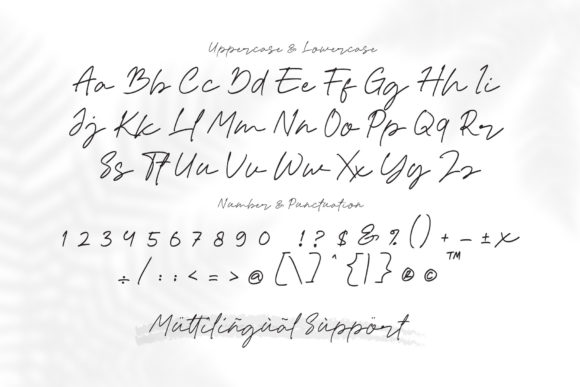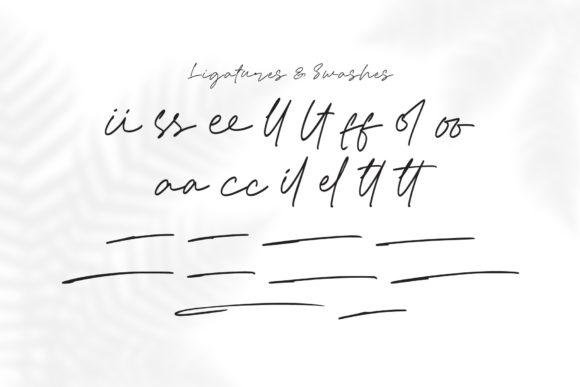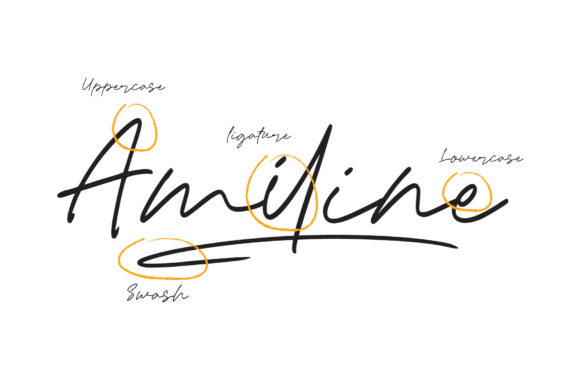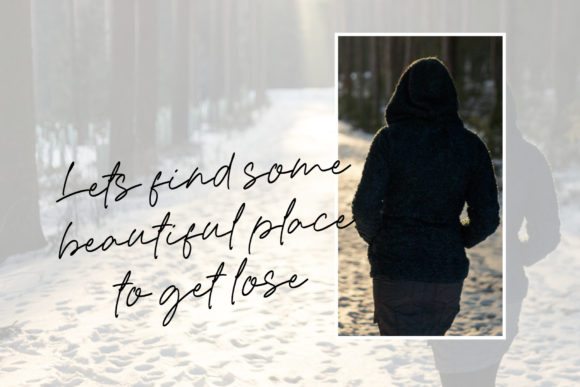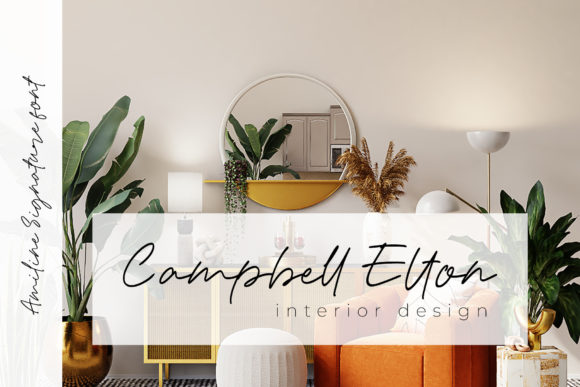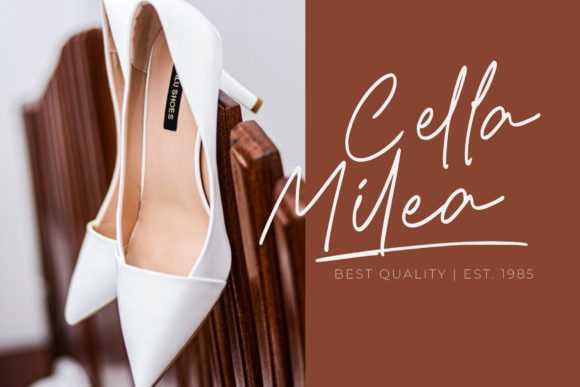
Discover the Elegance of Amiline Font: A Relaxed and Beautiful Script Font
Are you a designer or crafter looking for a font that exudes elegance and sophistication? Look no further than Amiline Font, a stunning script font that is sure to capture your heart. With its relaxed and beautiful style, Amiline Font is the perfect choice for creating lovely designs that stand out from the crowd.
What Makes Amiline Font So Special?
Amiline Font is a unique and gorgeous script font that boasts a distinctive style that sets it apart from other fonts. Its relaxed and fluid lines give it a natural, effortless look that is perfect for creating designs that are both elegant and approachable. Whether you’re working on a branding project, a wedding invitation, or a craft project, Amiline Font is sure to add a touch of sophistication and style.
The Benefits of Using Amiline Font
So why choose Amiline Font for your next design project? Here are just a few benefits of using this beautiful script font:
- Elegant and sophisticated style: Amiline Font has a unique and refined style that is perfect for creating designs that are both elegant and sophisticated.
- PUA encoded for easy access: Amiline Font is PUA (Private Use Area) encoded, which means that you can access all glyphs and swashes with ease. This makes it simple to customize your designs and add your own personal touch.
- Versatile and flexible: Amiline Font is a versatile font that can be used for a wide range of design projects, from branding and advertising to crafting and scrapbooking.
- Easy to read and understand: Despite its elegant and refined style, Amiline Font is still easy to read and understand, making it perfect for use in body text as well as headings and titles.
How to Use Amiline Font in Your Designs
Using Amiline Font in your designs is easy and straightforward. Here are a few tips to get you started:
- Pair it with other fonts: Amiline Font looks great when paired with other fonts, such as sans-serif fonts or serif fonts. Experiment with different combinations to find the one that works best for your design.
- Use it for headings and titles: Amiline Font is perfect for use in headings and titles, where its elegant and sophisticated style can really shine.
- Add swashes and glyphs: With its PUA encoding, Amiline Font makes it easy to add swashes and glyphs to your designs. Use these to add a touch of personality and flair to your work.
Amiline Font is a perfect choice for designers and crafters who are looking for a font that is both elegant and versatile. Whether you’re working on a professional design project or a personal craft project, Amiline Font is sure to meet your needs.
As a designer, you’ll love the flexibility and customization options that Amiline Font offers. With its PUA encoding and range of glyphs and swashes, you can tailor your designs to suit your client’s needs and preferences.
As a crafter, you’ll appreciate the elegance and sophistication that Amiline Font brings to your projects. Whether you’re working on a scrapbooking project, a card making project, or a DIY craft project, Amiline Font is sure to add a touch of style and personality.
In conclusion, Amiline Font is a beautiful and elegant script font that is perfect for designers and crafters who are looking for a font that is both sophisticated and versatile. With its relaxed and fluid lines, PUA encoding, and range of glyphs and swashes, Amiline Font is the perfect choice for creating lovely designs that stand out from the crowd.